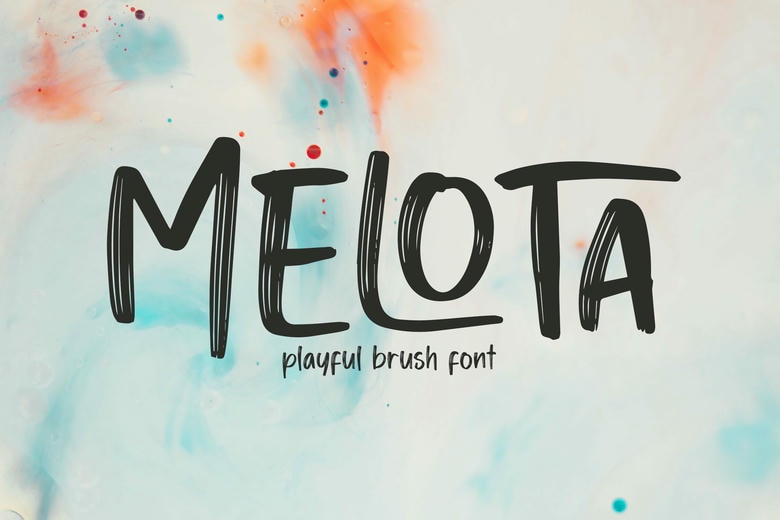
Melota Font
Melota is a delightful and playful font featuring a handbrush style that brings a fun and creative vibe to your designs. With its unique character shapes, Melota is ideal for enhancing the visual appeal of branding, packaging, invitations, and various graphic projects.
Melota Brush Script Font